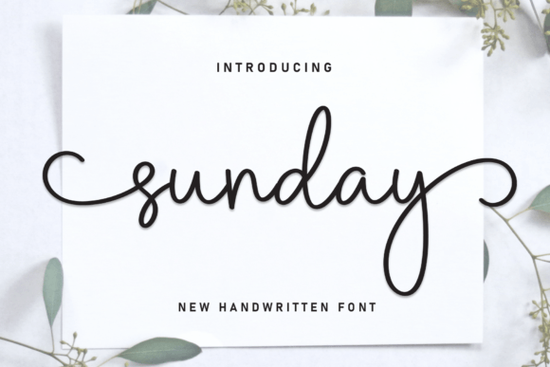
The Sunday Font is a sweet, cursive handwritten typeface that works beautifully across a wide range of creative projects. If you're looking for something with a soft, romantic feel without being overly formal, this font is a solid choice. It has that warm, personal quality that makes designs feel approachable and genuine.
Whether you're designing wedding invitations, crafting quotes for social media, or creating product labels, Sunday brings a joyful, lighthearted energy to the table. Let's look at what makes this handwritten script font worth considering and how you can put it to work.
What Makes the Sunday Font Stand Out?
Sunday is a cursive script font with smooth, flowing letterforms. The strokes feel natural and relaxed not too tight, not too loose. It strikes a balance that makes it readable while still looking hand-lettered.
Here's what you'll notice right away:
- Gentle curves that give each letter a soft, inviting look
- Consistent flow between characters, so words feel connected and smooth
- Light, airy weight that works well in both large headlines and smaller text blocks
If you've used other cursive fonts like Gloomy Unseen, you'll find Sunday has a distinctly warmer and more cheerful personality. It doesn't try to be edgy or dramatic it's simply sweet and pleasant to look at.
Who Is This Font Best For?
This font is a great fit for a variety of creative people and projects:
- Wedding and event stationery invitations, save-the-dates, menu cards
- Print-on-demand sellers t-shirt designs, mugs, tote bags
- Social media graphics quotes, story templates, Pinterest pins
- Small business branding logos, packaging, thank-you cards
- Crafters and hobbyists scrapbooking, journaling, DIY projects
If your work calls for a handwritten script that feels personal and approachable, Sunday checks a lot of boxes. It pairs nicely with clean sans-serif fonts for contrast, or with other script styles like the Lovely Mood Duo for a layered, decorative look.
How Does It Compare to Other Script Fonts?
There are plenty of handwritten and cursive fonts available. Here's how Sunday fits in compared to a few popular options:
- Charlie Script leans more toward a classic calligraphy style with bolder, more defined strokes. Sunday is softer and more casual by comparison.
- Straight font takes a completely different approach with clean, geometric letterforms a good pairing option if you want to mix script and non-script styles.
- Family Farmhouse has a rustic, vintage charm that works well for farmhouse-themed designs. Sunday is more modern and romantic.
Each font serves a different mood and purpose. Sunday's strength is its versatility it doesn't lock you into one specific aesthetic. You can use it for playful, elegant, or casual designs depending on the context.
What Design Projects Work Well With This Style?
Because Sunday has such a gentle, cursive quality, it shines in designs where you want to create an emotional connection. Think about projects where warmth and personality matter more than sharp precision.
Some specific ideas:
- Greeting cards Birthday, Valentine's Day, Mother's Day, or just-because cards look wonderful with this style.
- Quote prints Inspirational or romantic quotes for wall art and digital downloads.
- Logo design Especially for boutiques, bakeries, florists, or lifestyle brands that want a friendly, approachable feel.
- Sublimation projects Mugs, pillows, and other sublimation-ready products benefit from the clean, connected letterforms.
- Blog headers and Pinterest graphics The cursive style catches the eye without overwhelming the rest of your layout.
Best Practices for Using Cursive Handwritten Fonts
To get the most out of Sunday or any handwritten script font keep these tips in mind:
- Watch your sizing. Cursive fonts can lose readability at very small sizes. Use Sunday for headlines, logos, or medium-sized text rather than body copy.
- Pair it wisely. Match it with a simple, clean font for contrast. A basic sans-serif works well as a secondary font.
- Mind your spacing. Script fonts often need adjusted letter spacing. Check the default tracking and tweak it if letters look too cramped or too spread out.
- Test before you commit. Preview the font in your actual design layout before finalizing. If you're new to font pairing, understanding how typefaces work can help you make better pairing decisions.
Where Can You Get It?
Sunday Font is available through Creative Fabrica, which offers licensing that covers both personal and commercial use. This is especially helpful if you're selling products on platforms like Etsy, Redbubble, or Shopify. Always double-check the specific license terms to make sure your use case is fully covered.